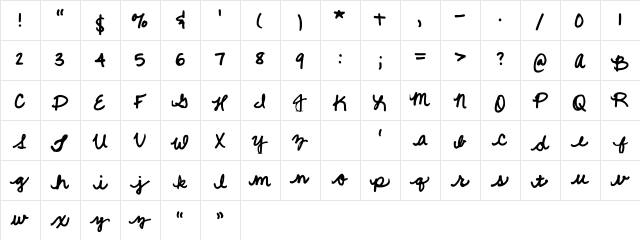
Quick Cursive Font Preview
Quick Cursive Cursive
Design Context for Quick Cursive Typeface
Quick Cursive brings a calligraphic fluidity to the page — its connecting strokes and expressive curves give it an unmistakably human quality.
Font Pairing: Combine Quick Cursive with a simple geometric sans for maximum contrast — the tension between flowing curves and clean structure is a classic typographic pairing.
Pro Tip: Pair Quick Cursive with a clean sans-serif for supporting text. The contrast between fluid script and geometric structure creates an elegant typographic hierarchy.